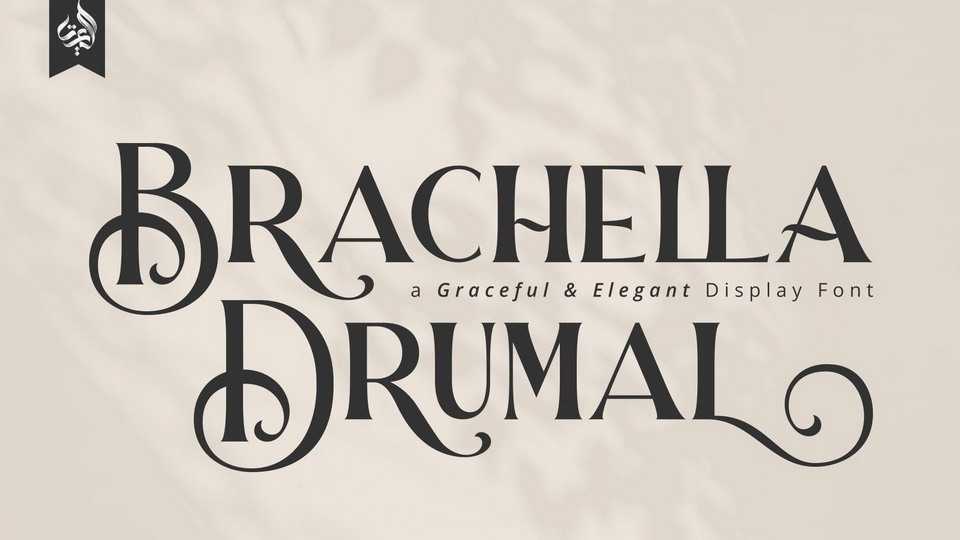
Download Brachella Drumal font, a graceful and elegant decorative serif typeface. Coming to you with stunning alternates and ligatures to create a perfectly mystical, beautiful, classy, elegant design.
Designer: Aluyeah Studio